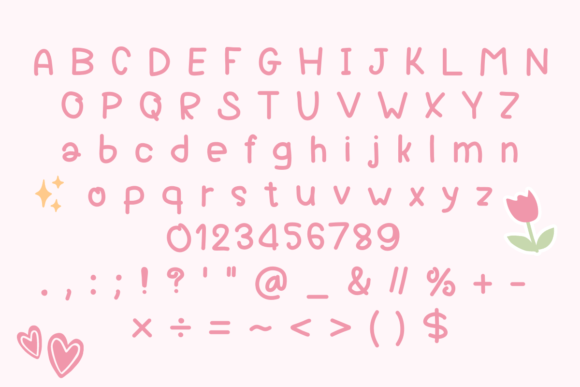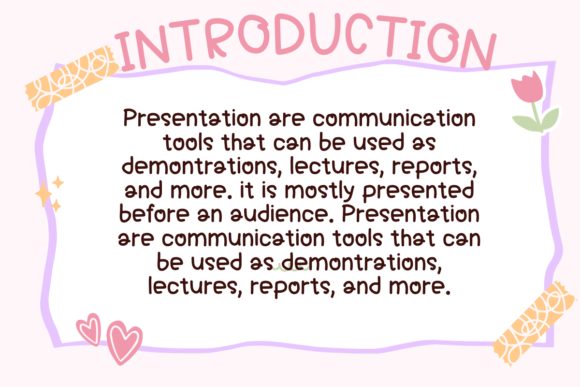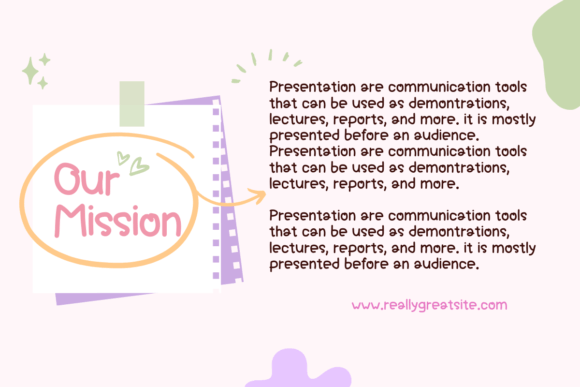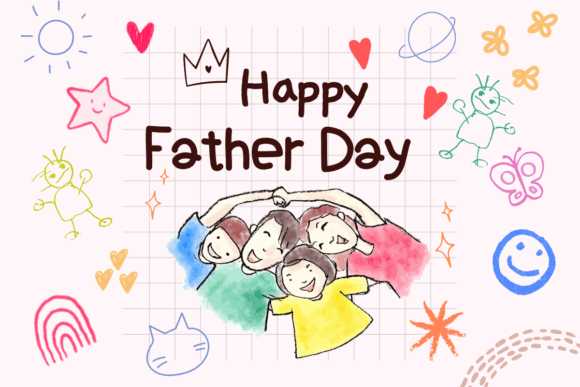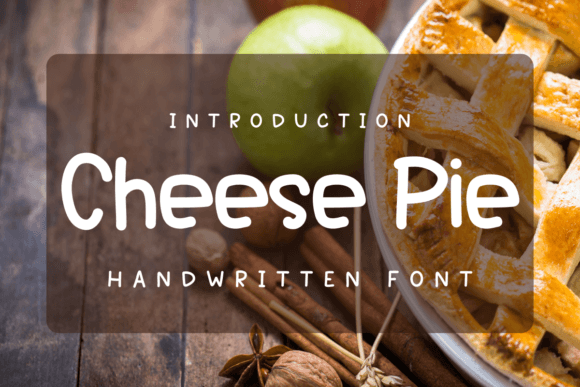
The Perfect Font for a Touch of Whimsy
Have you ever been stuck in a creative rut, staring blankly at a blank canvas, wondering how to add that extra oomph to your design? We’ve all been there. But what if we told you that the solution lies in a font that’s as playful as it is charming?
Meet Cheesepie Font, a delightfully quirky script and handwritten typeface that’s designed to add a sprinkle of whimsy to any design. With its uneven letters and playful curves, this font brings a lighthearted and imaginative feel to invitations, food packaging, and branding projects. Whether you’re a seasoned designer or a creative enthusiast, Cheesepie Font is a valuable addition to your toolkit, allowing you to bring a unique and delightful character to your work.
- Unique Characteristics: The Cheesepie font is known for its playful, whimsical design, with a mix of serif and sans-serif elements, making it perfect for creating eye-catching and memorable designs.
Designer Review: Cheesepie Font
At first glance, the Cheesepie Font caught my eye with its playful and whimsical vibe. I must admit that I was curious to dive deeper and see what it had to offer.
Here’s what works well:
- ✨ The font is incredibly legible, even at small font sizes. It’s perfect for digital interfaces where readability is crucial.
- ✨ The font’s unique aesthetic makes it perfect for branding and creative projects where a touch of personality is needed.
- ✨ The font’s versatility allows it to be used in a wide range of applications, from headings to body text.
However, there are some limitations:
- ⚠️ The font may not be suitable for formal or professional projects where a more conservative font is required.
- ⚠️ The font’s unique style may not appeal to everyone, and some users may find it too playful or distracting.
Overall, I think the Cheesepie Font is a great choice for designers who want to add some personality to their projects. While it may not be suitable for every project, it’s definitely worth considering for creative and branding work.
For the best results, use the Cheesepie Font for titles, headings, and other emphasis text. It is ideal for creating a playful and whimsical atmosphere. Avoid using it for large blocks of text, as it may be difficult to read.